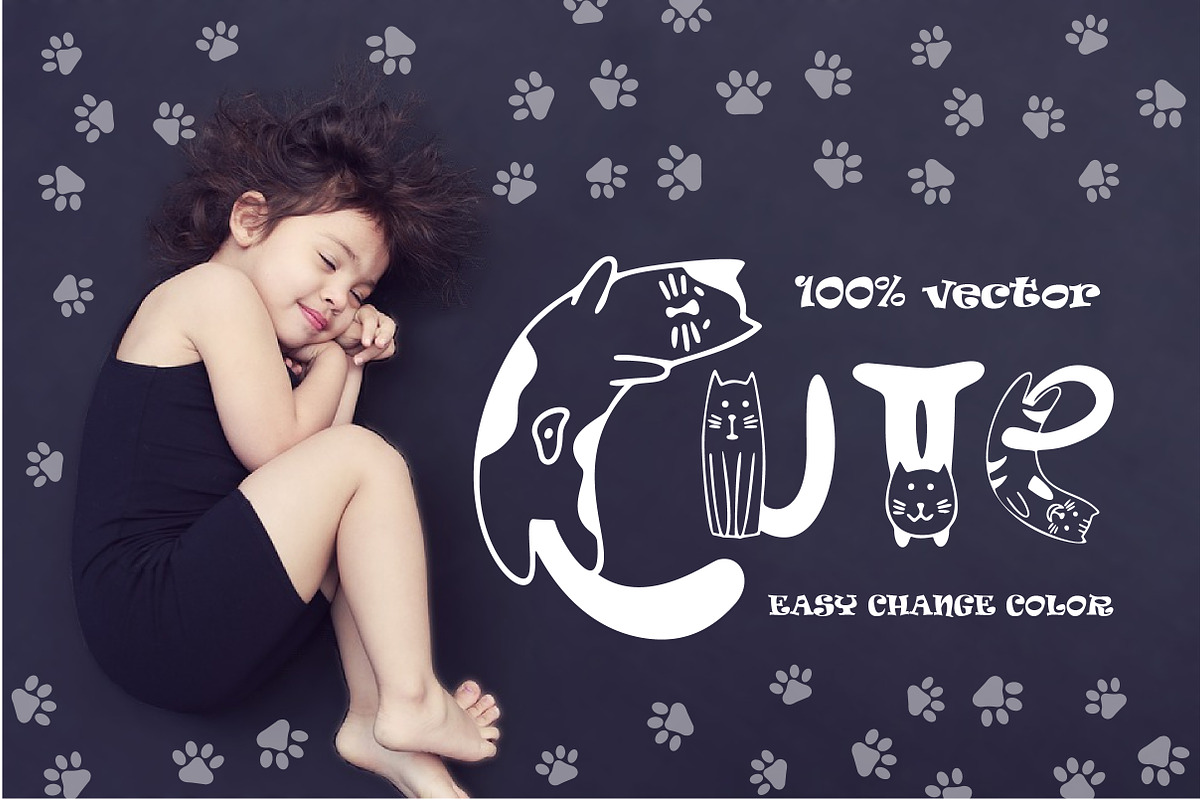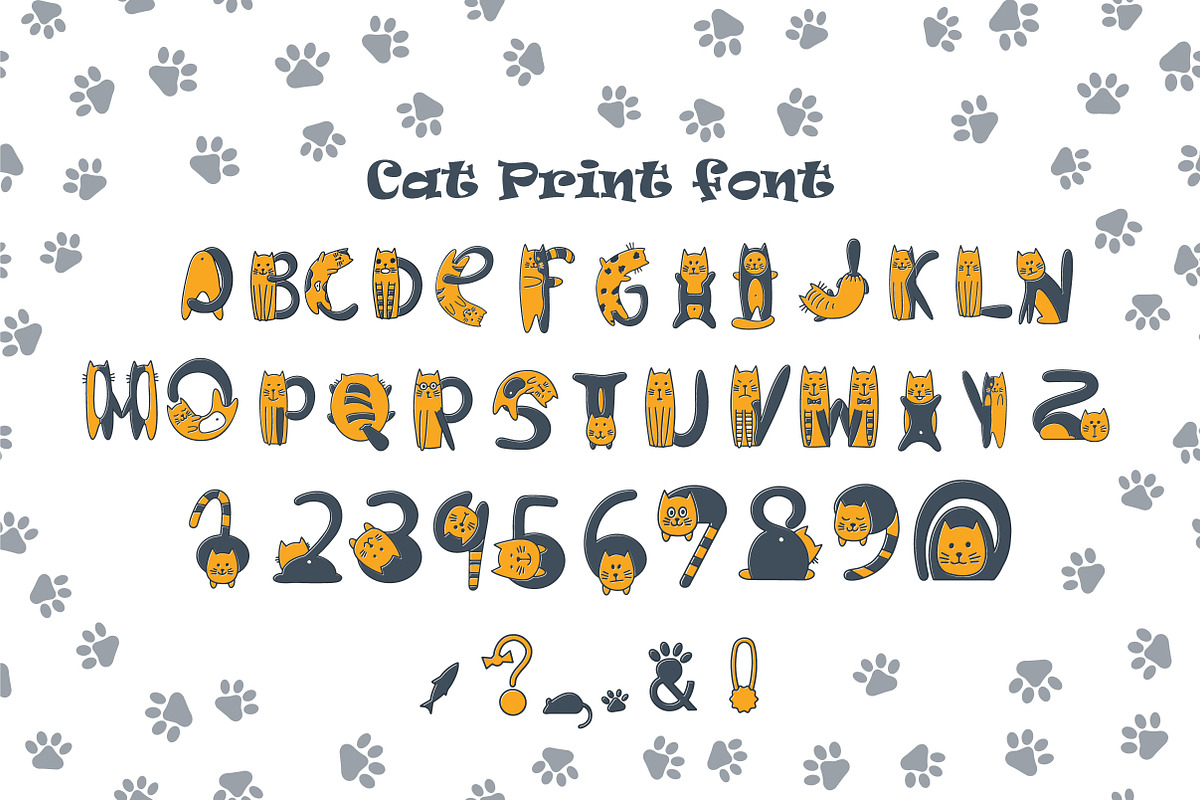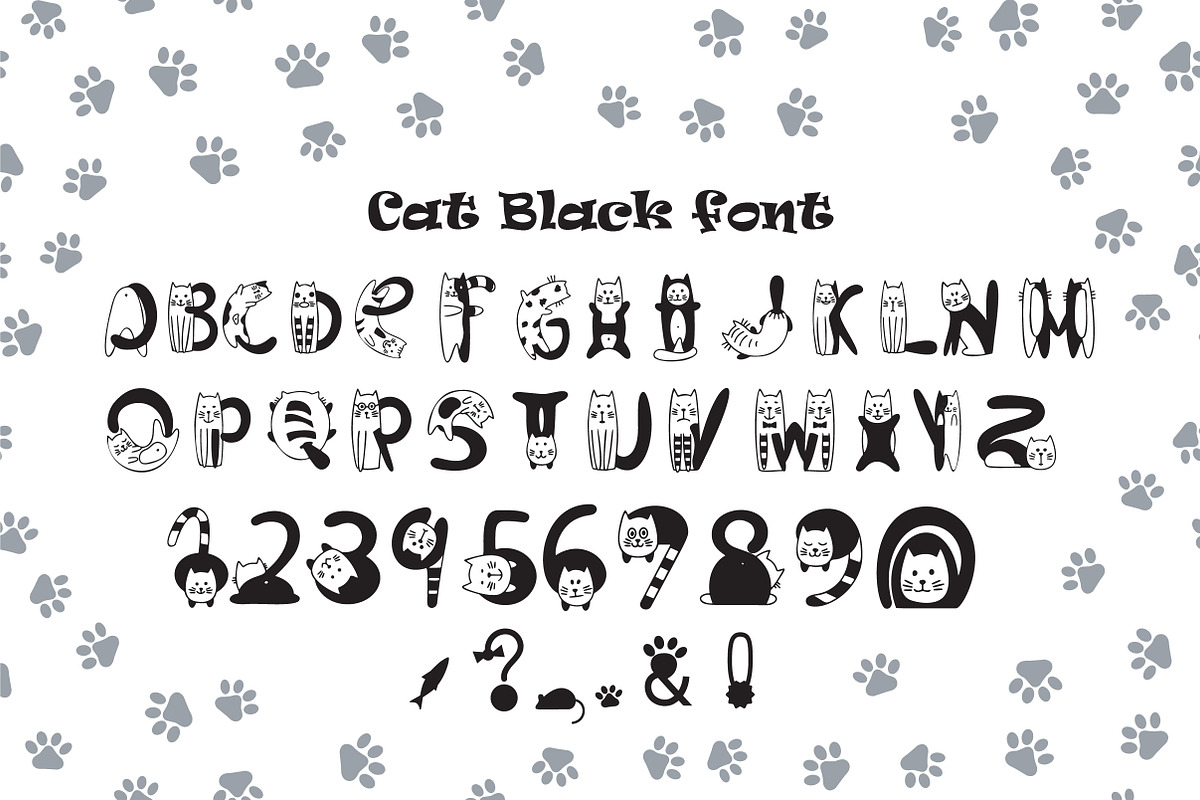
Cats Black font
Cats OTF color font. Creative set of characters, kittens pictured in a variety of poses. You can use this font for design logos, quotes prints on t-shirts and other.